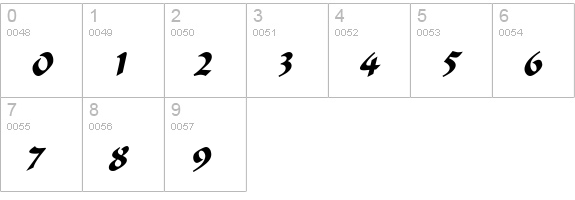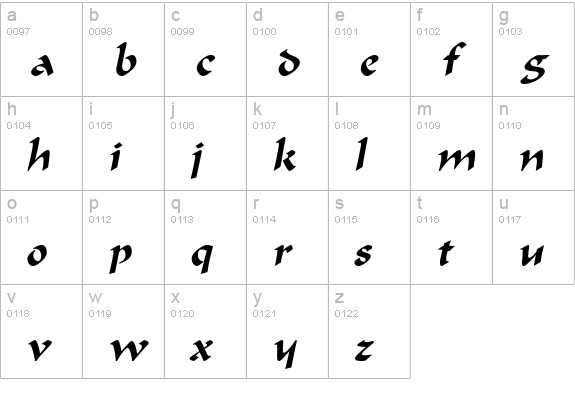
Marlin Italic Font Details
Marlin Italic is a distinctive, italic variant in the Marlin typeface family \xE2\x80\x94 well suited to design and typography projects.
Marlin Italic is a beautifully crafted font that exudes elegance and sophistication. Its sleek and slender letterforms are effortlessly balanced, making it perfect for creating a refined and upscale feel in any design project. With its delicate and graceful curves, Marlin Italic adds a touch of class and sophistication to any typographic composition. Whether used for headings, titles, or body text, this font captures attention and creates a lasting impression. Its stylish and contemporary appearance makes it suitable for a wide range of applications, from branding and packaging to editorial design and advertising. One of the best aspects of Marlin Italic is that it is freely available to download at FontsMarket.com. This means that designers and creatives can easily access and utilize this exceptional font in their projects without any constraints. Its free availability allows for endless possibilities and encourages creativity to flourish. Marlin Italic is a versatile font that effortlessly combines elegance, legibility, and style. Its exceptional design and attention to detail make it stand out from the crowd, enabling designers to create unique and visually captivating designs. Whether used in print or digital media, Marlin Italic never fails to make a statement. So, if you are looking for a font that adds a touch of sophistication to your design while being freely available to download, look no further than Marlin Italic. Visit FontsMarket.com today and unlock the potential of this exceptional font for your next project.